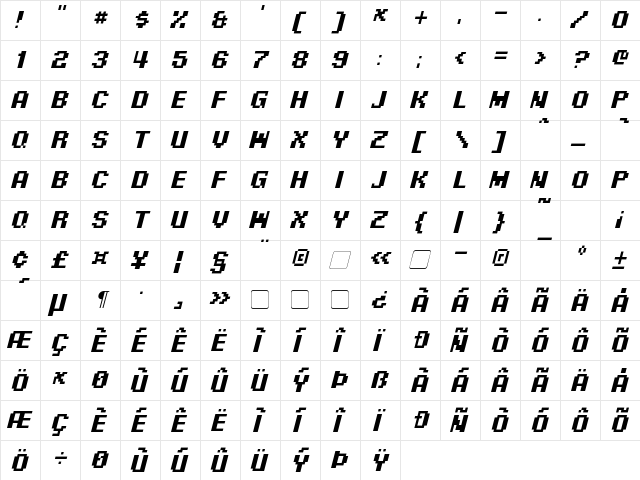
Pixel Digivolve Italic
Design Context for Pixel Digivolve Typeface
Pixel Digivolve is rooted in pixel-grid construction, making it a natural fit for game UI, retro computing aesthetics, and digital nostalgia projects. The dynamic lean of this cut emphasises speed and emphasis in any layout.
Well-suited to indie game interfaces, retro computing aesthetics, and pixel art-adjacent design work.
Pro Tip: Use Pixel Digivolve at sizes that align with its pixel grid for the sharpest rendering — scaling to non-integer multiples can introduce unwanted blur.